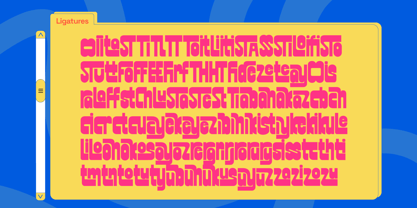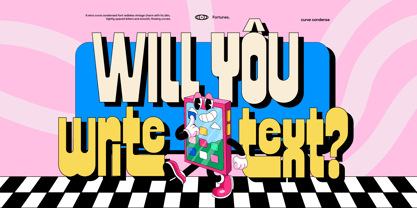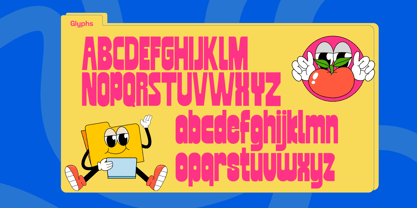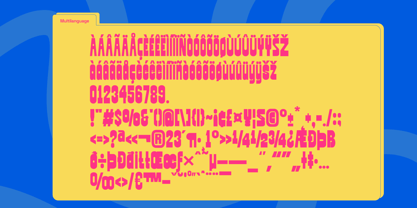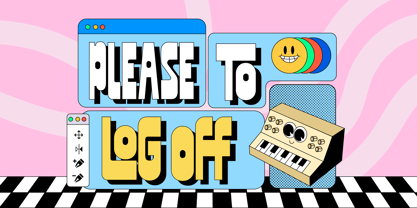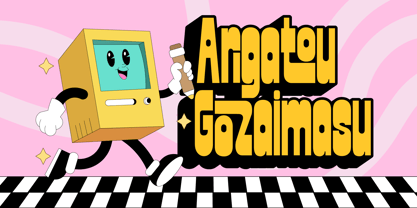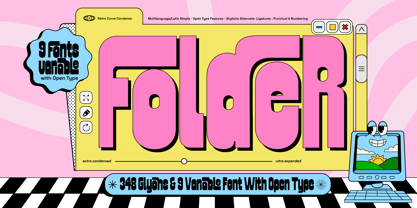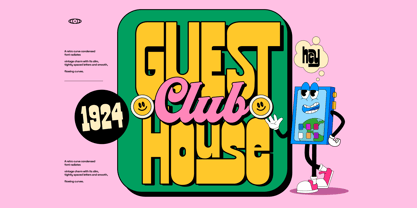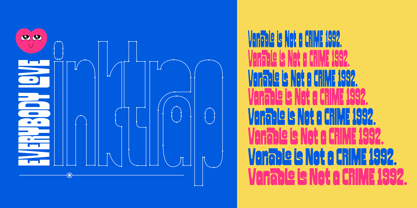
Fd Folder
by Fortunes Co
The Fd Folder Font Family was designed by Ramandhani Nugraha and published by Fortunes Co. Fd Folder contains 9 styles and family package options. More about this family
A retro curve condensed font with round corners embodies a nostalgic charm, blending vintage aesthetics with modern simplicity. Its condensed letterforms save space while maintaining legibility, making it ideal for bold headlines and stylish posters.
The smooth, rounded corners add a soft, approachable feel, evoking warmth and playfulness. Perfect for retro-themed designs, this font channels the essence of mid-century style, with sweeping curves and streamlined shapes reminiscent of classic signage, advertisements, and packaging. Its unique balance of compact structure and flowing lines ensures versatility, seamlessly adapting to both digital and print media, giving designs a timeless yet trendy appeal.
Designers: Ramandhani Nugraha
Foundry: Fortunes Co